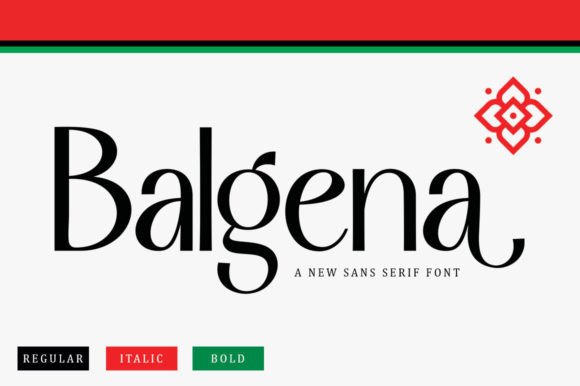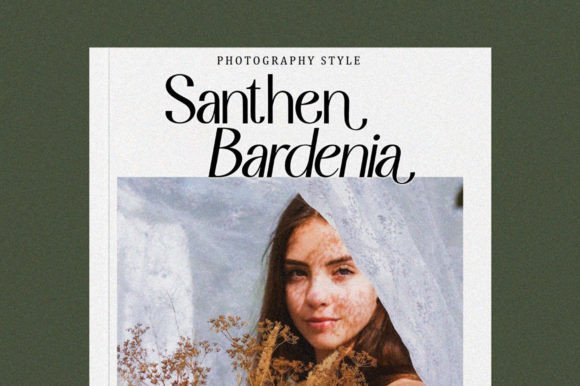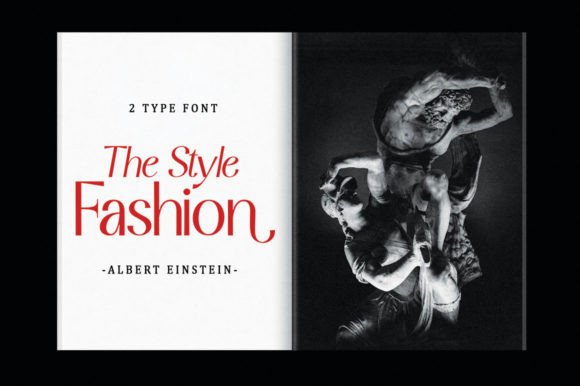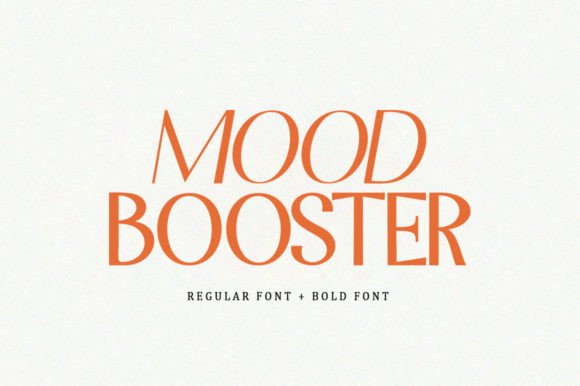
Balgena Font: Elegant & Unique Sans Serif for Branding + Logo Design
About the Balgena Font
Presenting Balgena Font, a unique and stylish typeface that will make your work stand out. Balgena is a versatile, high-contrast sans serif font family. It has extra glyphs to give the crafter more options in designing. These extras will make a design look more classy, elegant, unique, and edgy.
Balgena is a font suitable for many projects, modern or even retro vintage designs, branding, logos, crafts, stickers, sublimation, wedding invitations, and more.
Balgena’s high contrast and geometric structure make it ideal for headlines, logos, and short, impactful text on branding materials and posters. Its versatility extends to packaging design, particularly for products aiming for a modern or slightly edgy aesthetic. However, its strong character and limited x-height make it less suitable for body text or UI elements requiring high readability in long paragraphs.
The font exudes a confident, modern boldness. To complement this, pairing Balgena with a clean sans-serif like Lato for body copy provides a strong contrast while maintaining a cohesive feel. For a softer touch, consider pairing it with a script font like Great Vibes for invitations or branding elements requiring a touch of elegance. Alternatively, a geometric sans-serif like Futura can enhance Balgena’s modern feel in a more minimalist context.
Avoid using Balgena for applications requiring extensive amounts of text. Its strength lies in making a statement, not in providing effortless readability over large blocks of content.
Balgena Font Usage Examples
Balgena Font Example